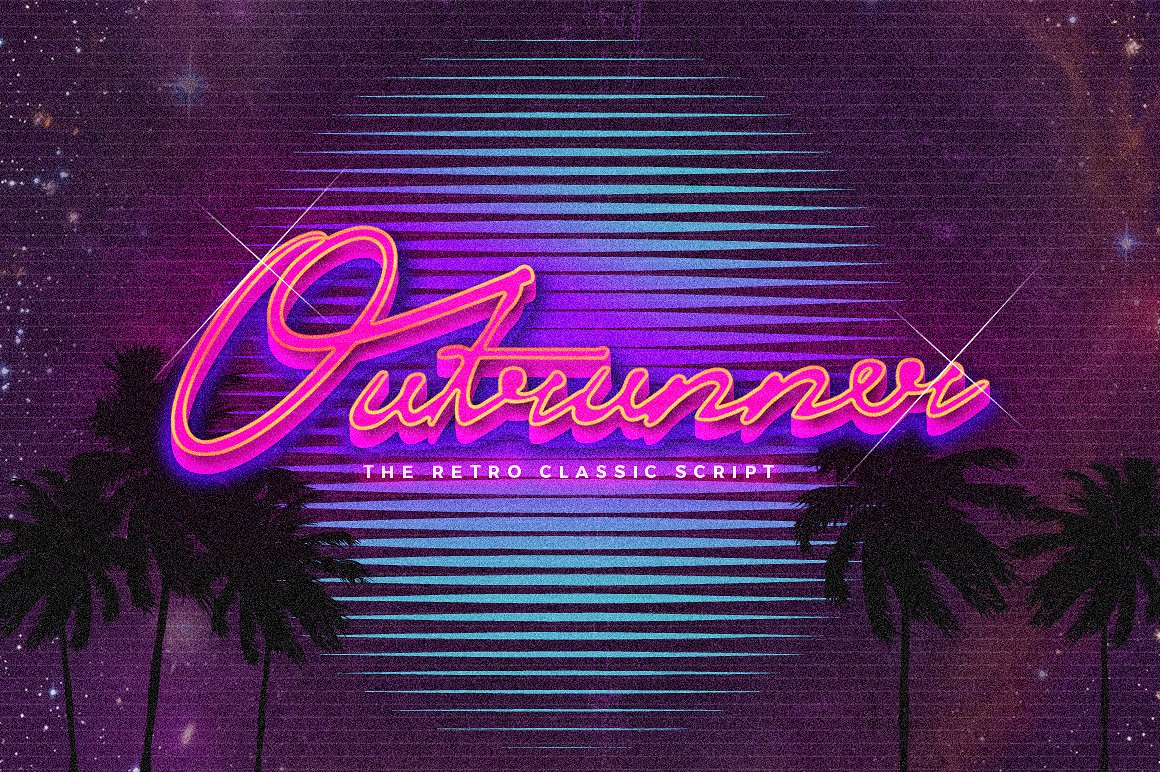
Outrunner Retro Script
Remember the 80’s era once people wearing vibrant colors, go to the disco or watching science fiction movie with colorful posters and listening to the dance music?
| Classification: | Handwritten Fonts, Script Fonts |